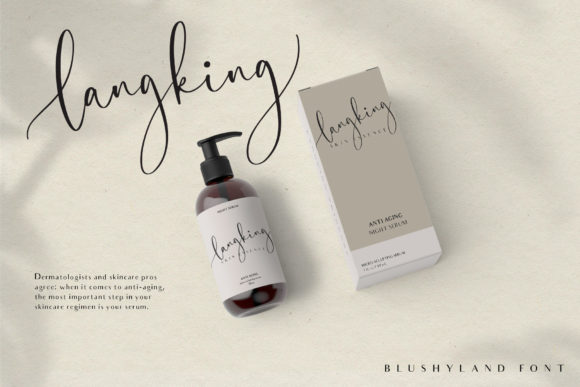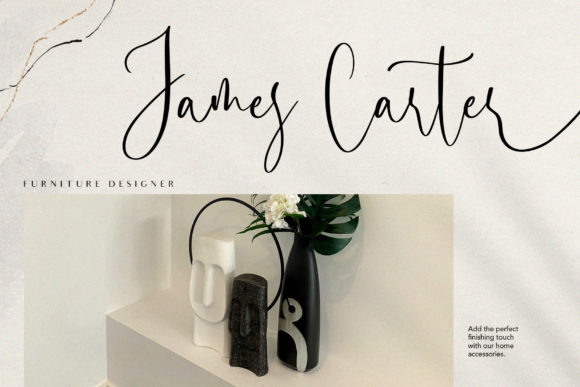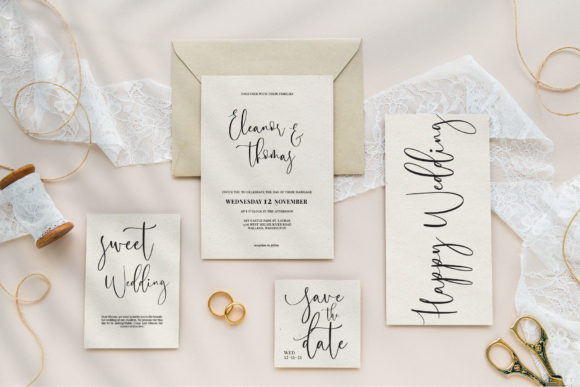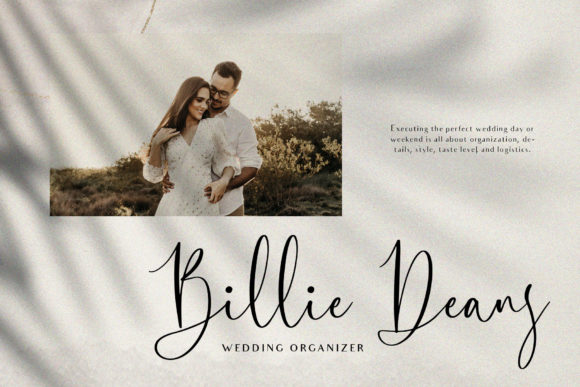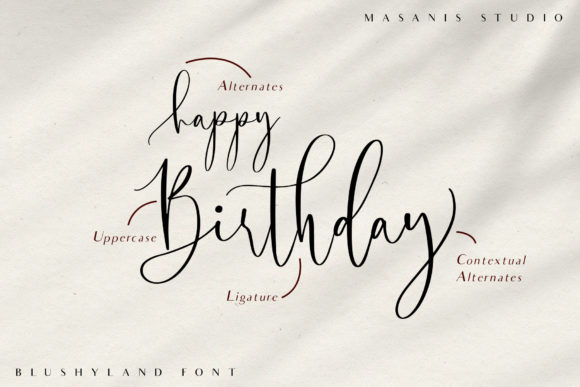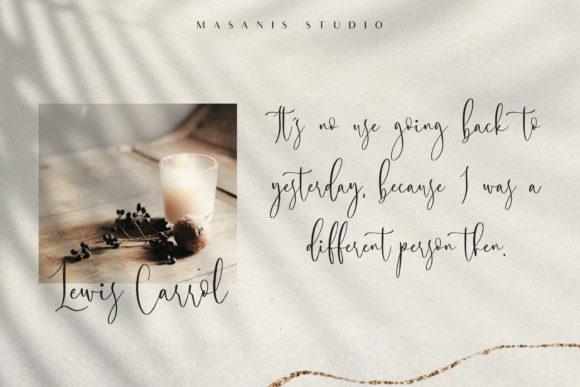
Introducing Blushyland Font: Elevate Your Designs with Elegance and Sophistication
Are you a designer or crafter looking for a font that exudes modernity and elegance? Look no further than Blushyland Font, a stunning typeface that is sure to elevate your designs to new heights. With its sleek lines, beautiful curves, and extensive range of stylistic alternates, Blushyland Font is the perfect choice for a wide range of design projects.
What is Blushyland Font?
Blushyland Font is a modern and elegant font that is designed to make a statement. Its clean and sophisticated design makes it perfect for use in a variety of contexts, from logos and wedding invitations to headings, t-shirts, letterhead, signage, labels, news, posters, badges, and more.
Key Features of Blushyland Font
So, what sets Blushyland Font apart from other fonts? Here are just a few of its key features:
- Modern and Elegant Design: Blushyland Font boasts a sleek and sophisticated design that is sure to impress.
- Stylistic Alternates: With a wide range of stylistic alternates, you can customize your text to suit your design needs.
- Versatility: Blushyland Font can be used for a wide range of design projects, from logos and branding to wedding invitations and more.
- Easy to Read: Despite its elegant design, Blushyland Font is easy to read, making it perfect for use in body text as well as headings.
Uses for Blushyland Font
So, what can you use Blushyland Font for? The possibilities are endless! Here are just a few ideas to get you started:
- Logos and Branding: Create a stunning logo for your business or brand with Blushyland Font.
- Wedding Invitations: Make your wedding invitations truly special with Blushyland Font.
- Headings and Titles: Use Blushyland Font to add a touch of elegance to your headings and titles.
- T-Shirts and Merchandise: Create custom t-shirts, mugs, and other merchandise with Blushyland Font.
- Signage and Labels: Use Blushyland Font for signage, labels, and other display text.
Why Choose Blushyland Font?
With so many fonts to choose from, why should you choose Blushyland Font? Here are just a few reasons:
- Unique and Eye-Catching: Blushyland Font is a unique and eye-catching font that is sure to make your designs stand out.
- High-Quality Design: Blushyland Font is designed to the highest standards, ensuring that your designs look professional and polished.
- Great Value: With its extensive range of stylistic alternates and versatility, Blushyland Font offers great value for designers and crafters.
| Font Name | Blushyland Font |
| Author | Mas Anis |
In conclusion, Blushyland Font is a modern and elegant font that is perfect for designers and crafters looking to elevate their designs. With its sleek lines, beautiful curves, and extensive range of stylistic alternates, Blushyland Font is sure to impress. Whether you’re creating logos, wedding invitations, headings, t-shirts, or more, Blushyland Font is the perfect choice.